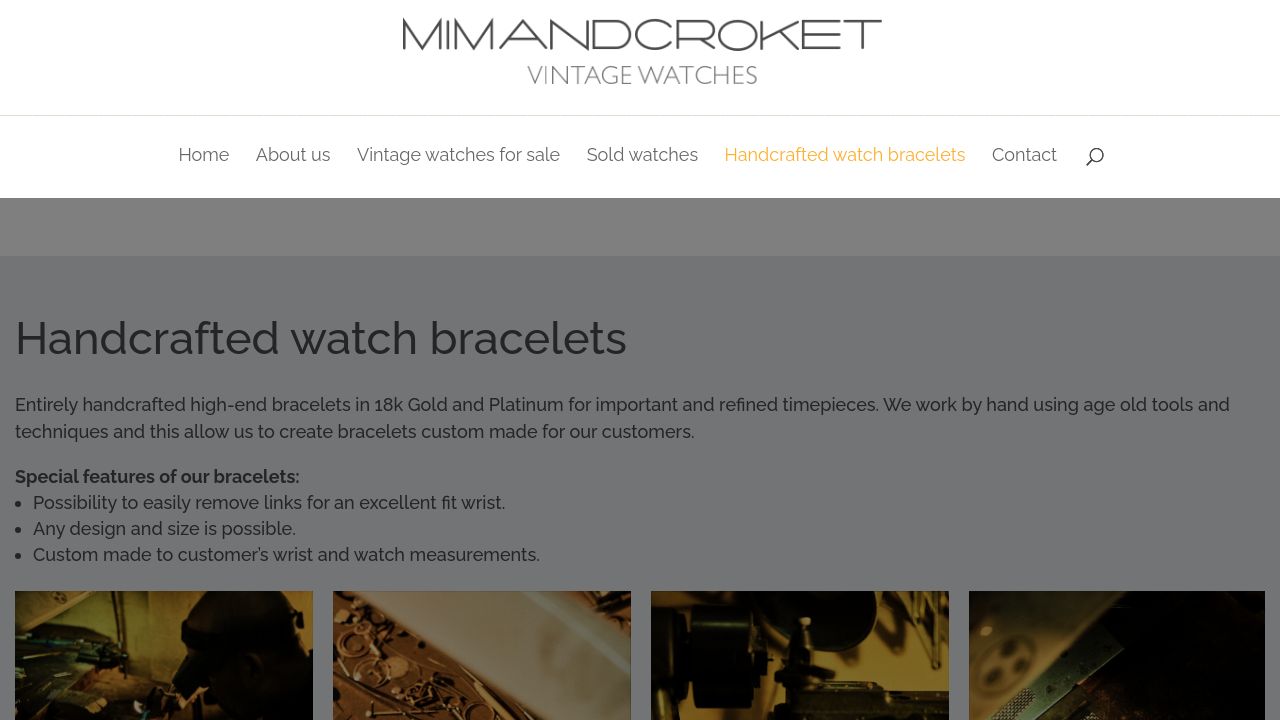
mimandcroket.com: What fonts does Mimandcroket use? - Open Sans, Material Icons, Raleway
What fonts does Mimandcroket use?
At mimandcroket.com, the choice of fonts reflects a dedication to craftsmanship and luxury in their handcrafted watch bracelets. The use of Open Sans offers clarity and readability, while Raleway adds a sophisticated touch that complements the high-end materials like 18k Gold and Platinum. Custom fonts like Material Icons and ETmodules enhance the site's unique identity, appealing to a discerning audience who values both style and functionality.
Frequently asked questions about Mimandcroket.com's fonts
What fonts are used on mimandcroket.com?
mimandcroket.com primarily uses Open Sans, Raleway, and several custom fonts like Material Icons and ETmodules, enhancing the site's luxury appeal.
How do Open Sans and Raleway compare to other fonts?
Open Sans offers excellent legibility for body text, while Raleway provides a more refined look for headings, making them ideal for luxury branding.
What styles and weights are available for Raleway?
Raleway on mimandcroket.com includes multiple weights from 100 to 900, allowing for versatile use in various design contexts.
Are there fallback fonts used on mimandcroket.com?
Yes, mimandcroket.com employs fallback fonts like Arial, Helvetica, and Roboto to ensure a consistent appearance across different devices and browsers.